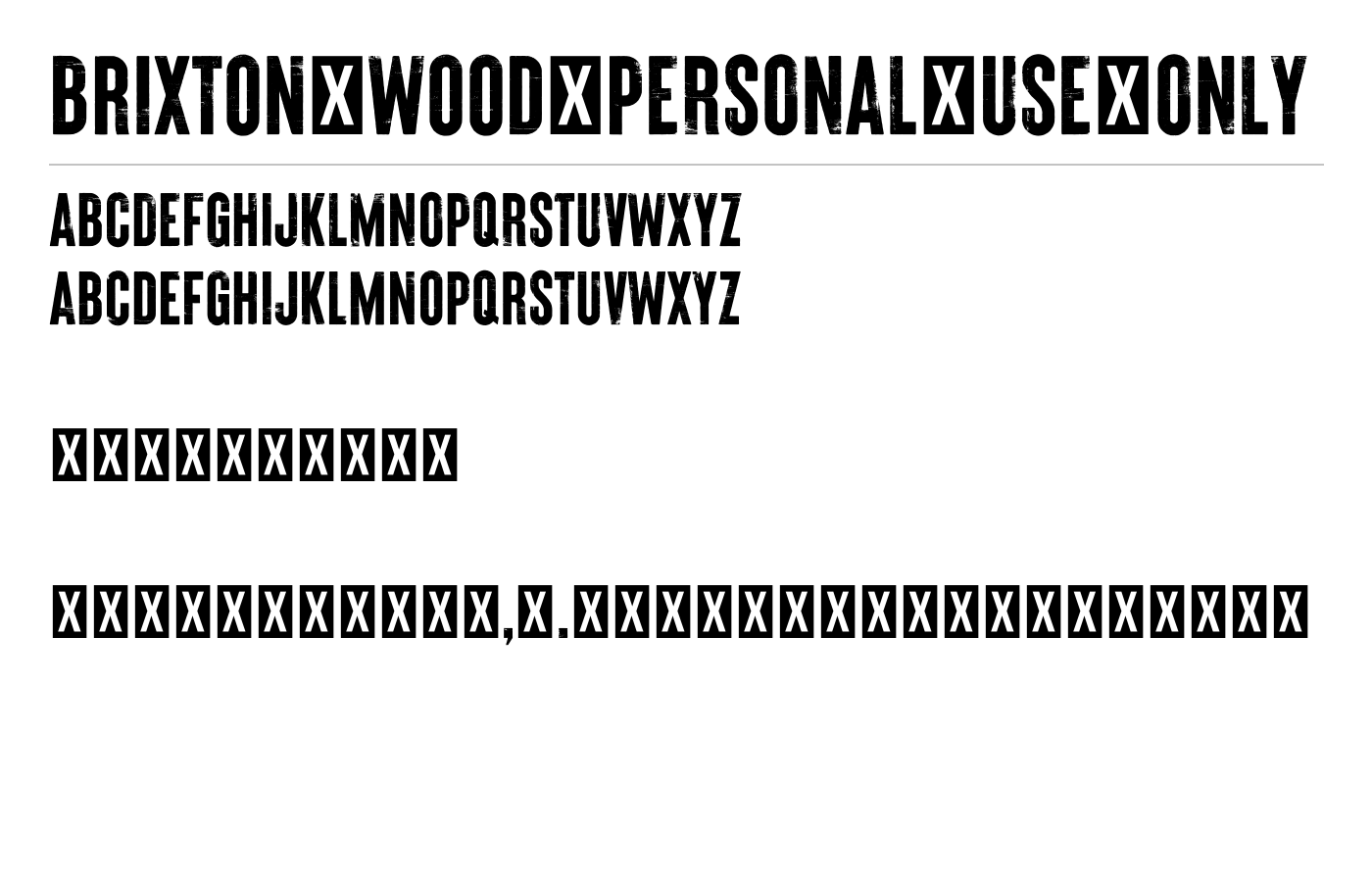
Brixton Wood is a bold, narrow sans serif font with a textured, distressed look that gives it a rugged, vintage feel. Its tall, condensed letterforms and uniform weight make it ideal for impactful headlines, logos, and designs that need a strong, rustic character. This font works especially well in branding and packaging where a handcrafted, industrial vibe is desired.
Brixton_Wood_PERSONAL_USE_ONLY Font
About Brixton_Wood_PERSONAL_USE_ONLY Font
| Font family | Brixton_Wood_PERSONAL_USE_ONLY Font |
| Designer | Ellen Luff |